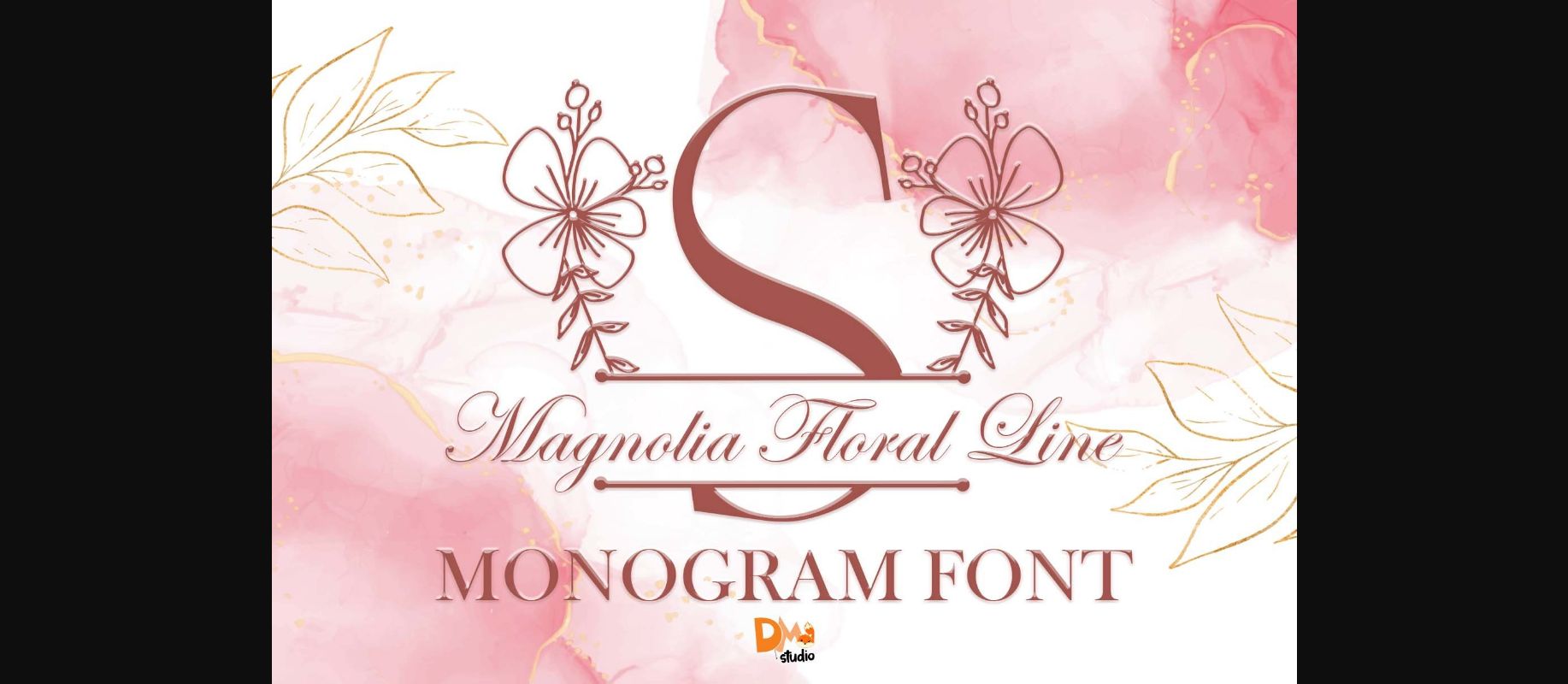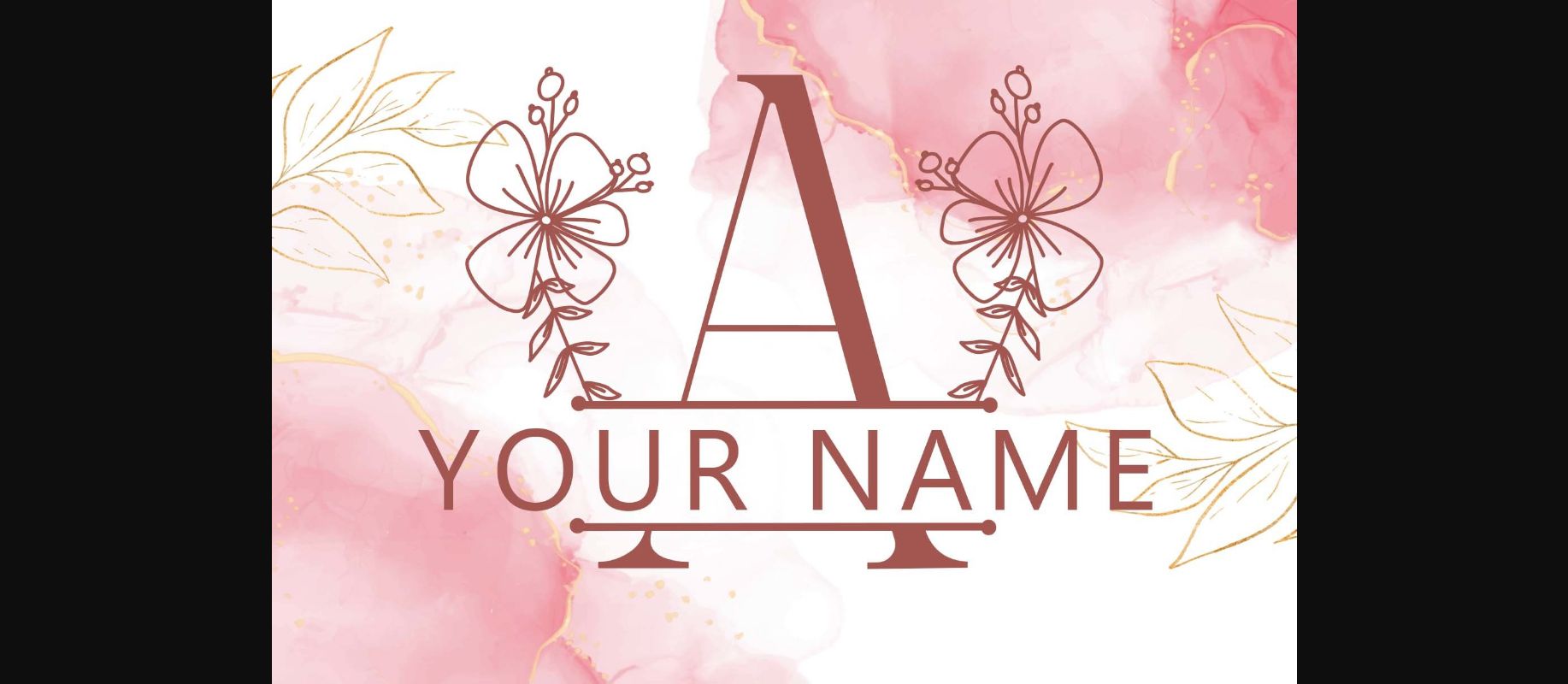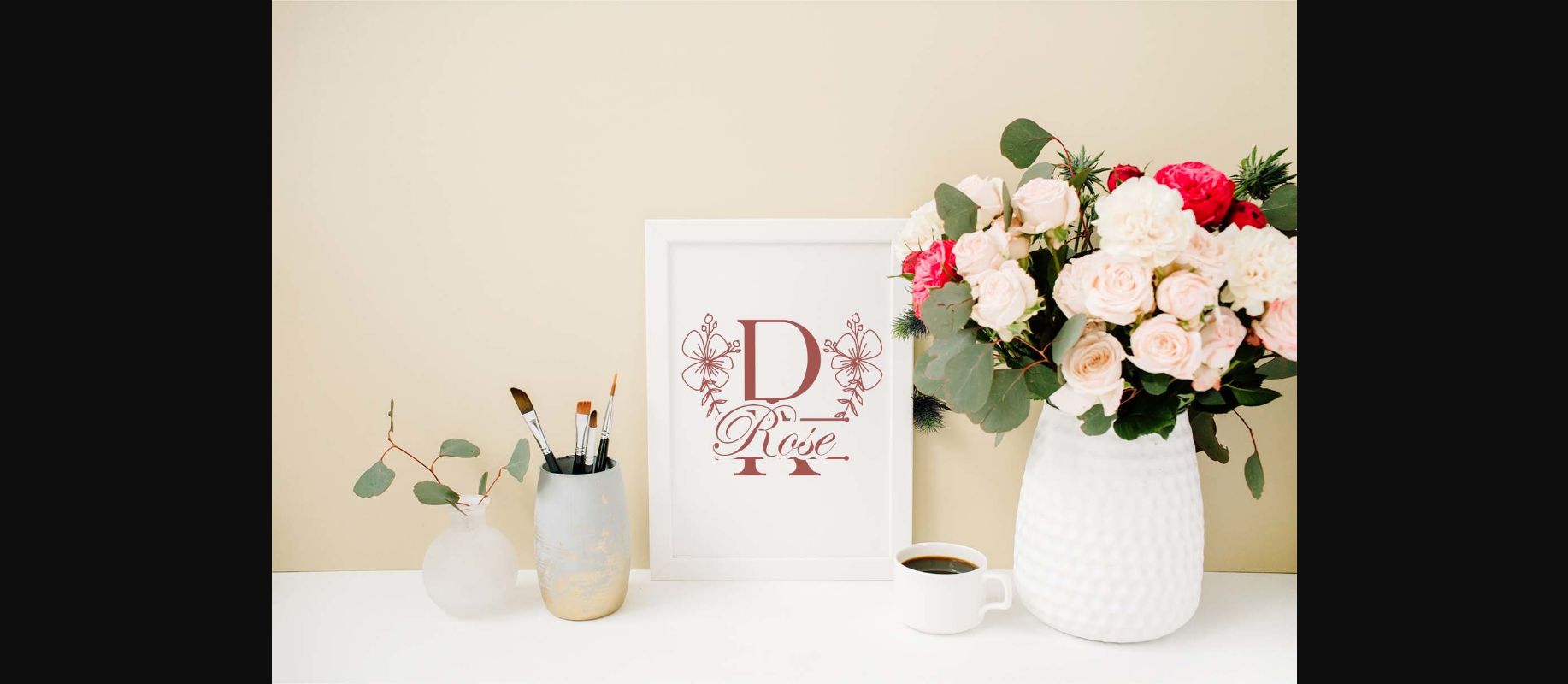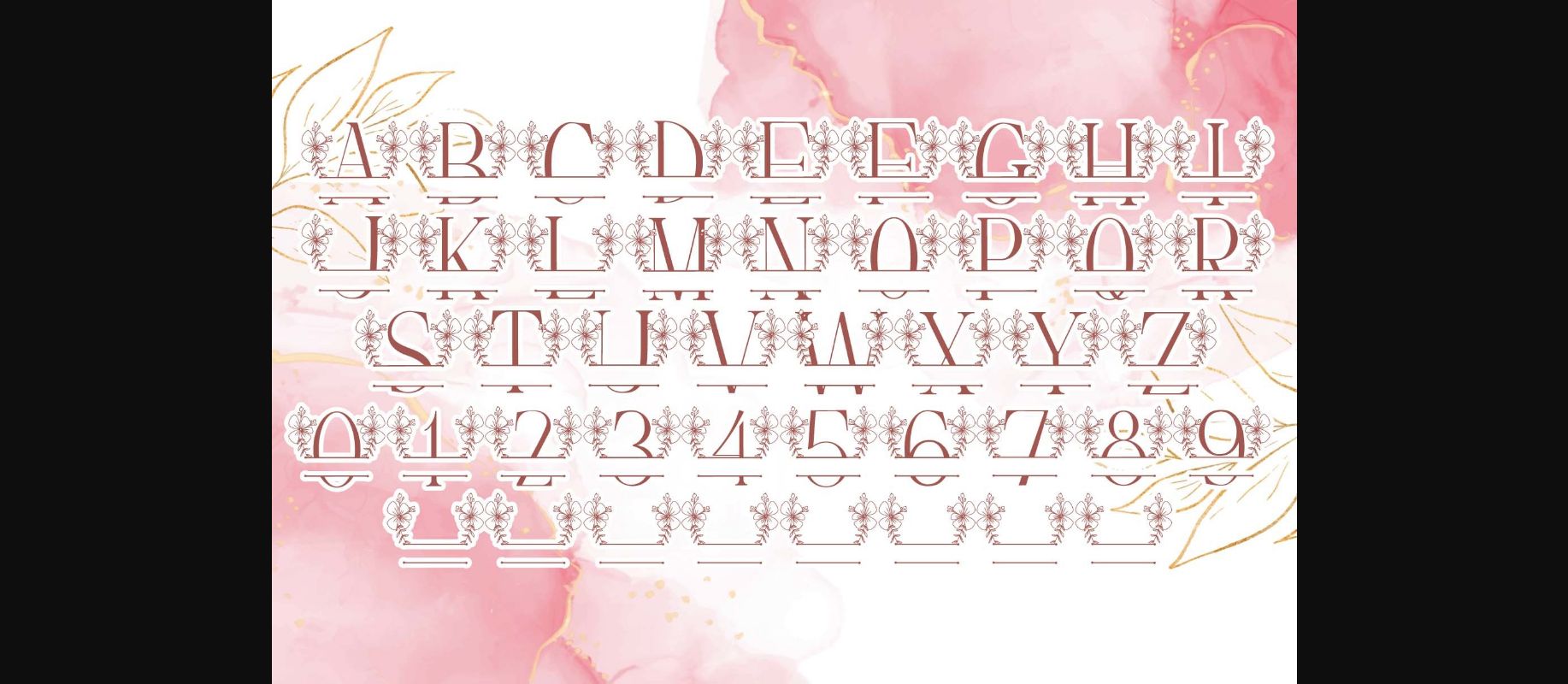
About Magnolia Floral Line Monogram Font
Magnolia Floral Line Monogram is a dainty and unique decorative font. Add this romantic and lovely looking font to each of your love letters, wedding invitations or favorite design ideas, and you will be astounded by the outcome.